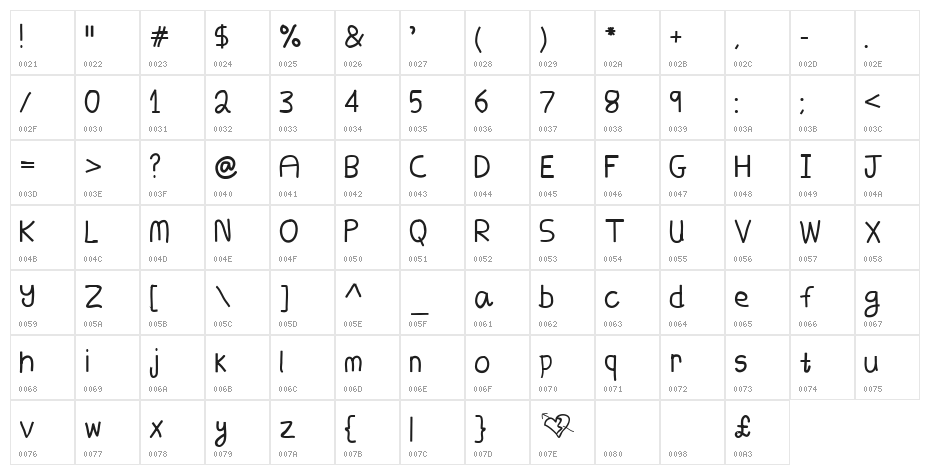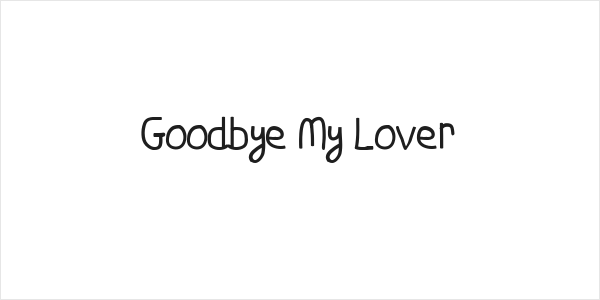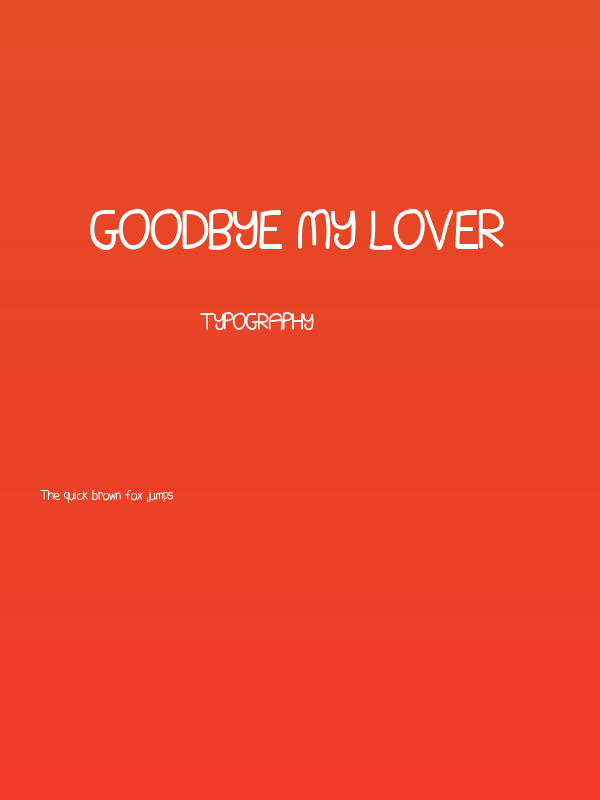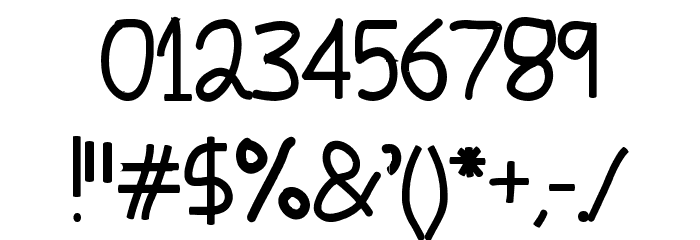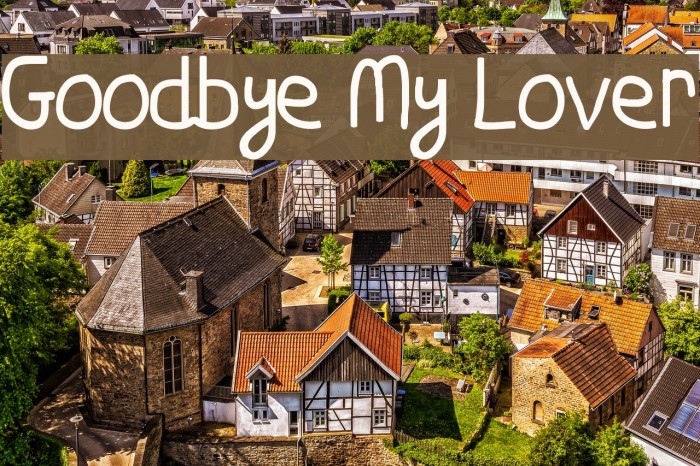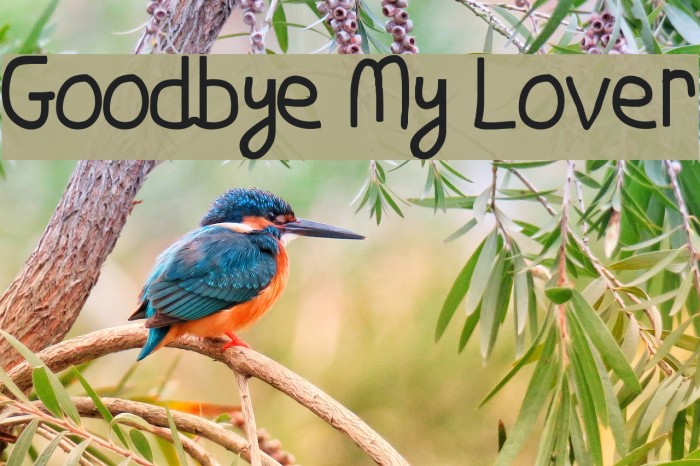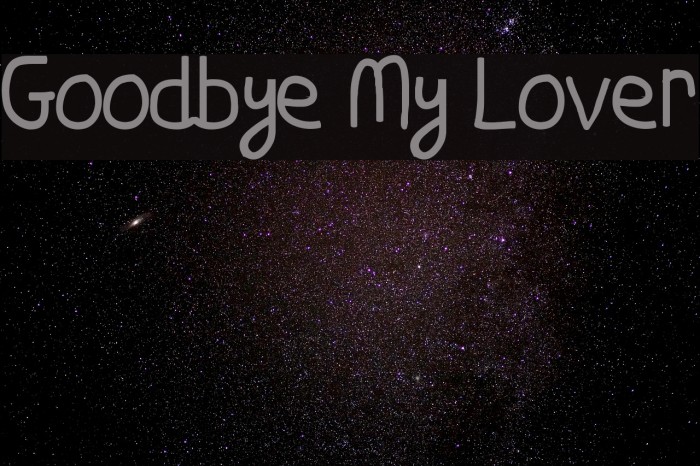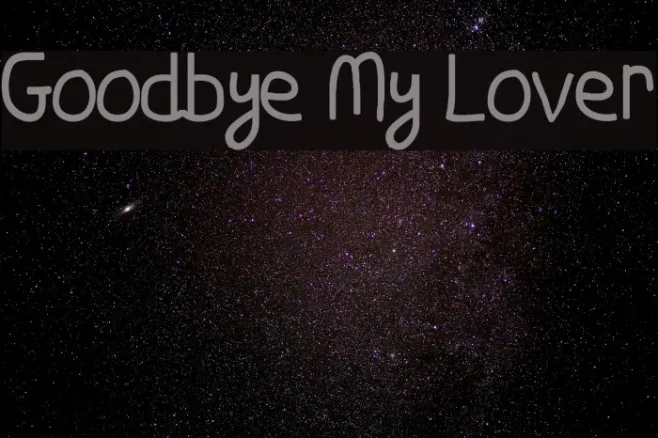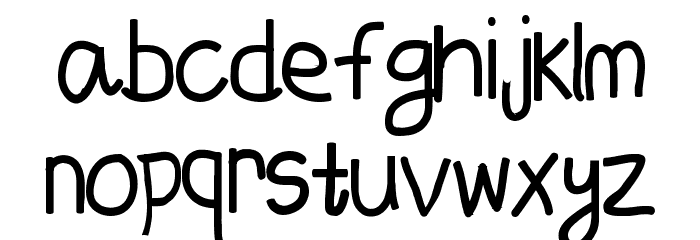
Goodbye My Lover Font
Goodbye My Lover Description
This font features a playful and casual handwritten style, characterized by its rounded and slightly irregular letterforms. The strokes are consistent in width, giving it a uniform appearance, while the rounded edges add a friendly and approachable feel. The uppercase letters are bold and prominent, while the lowercase letters maintain a consistent flow, enhancing readability. Numbers and special characters follow the same design principles, ensuring a cohesive look across all text elements. This font's unique style makes it suitable for projects that require a personal touch.
| Proposed Projects | Ideal for greeting cards, children's books, casual branding, and social media graphics. |